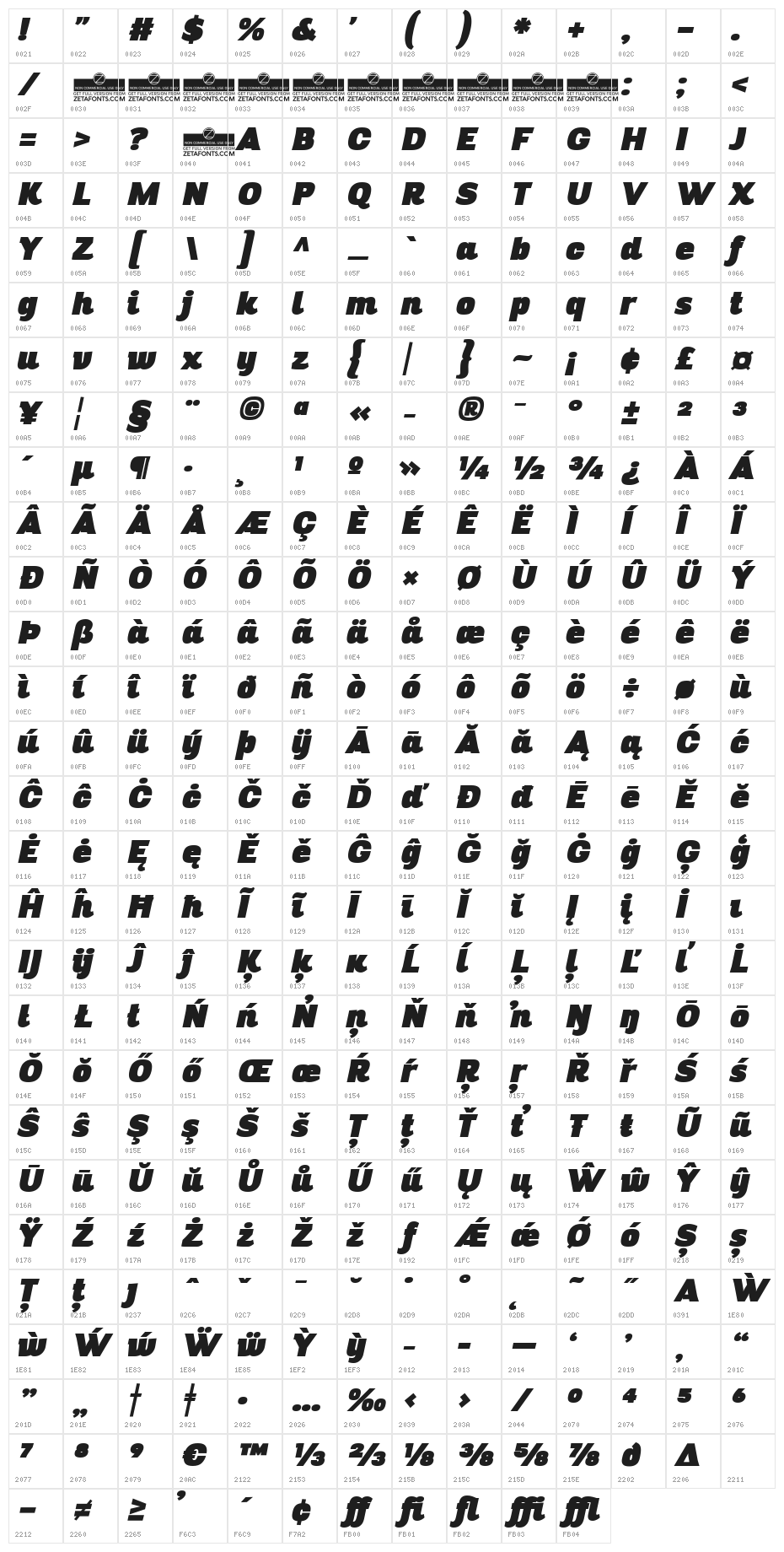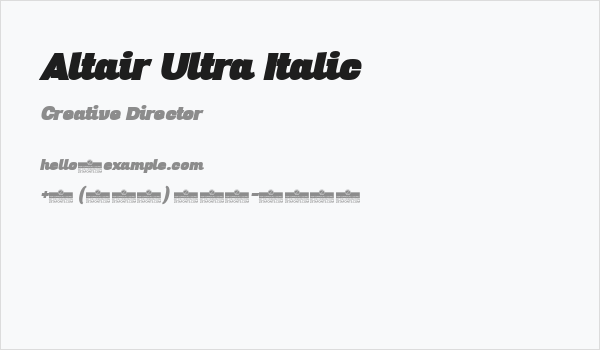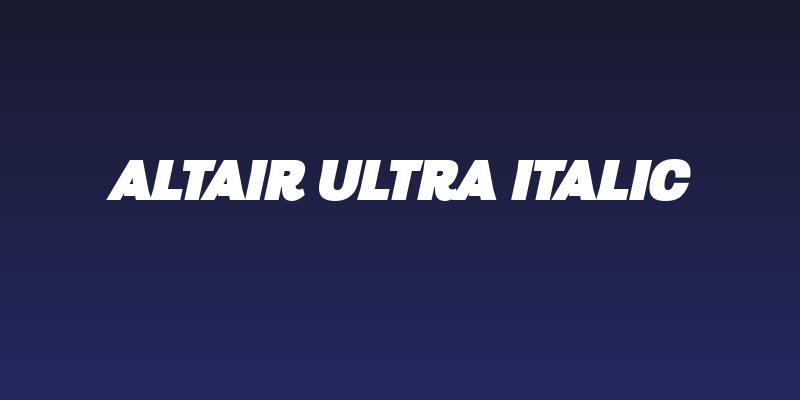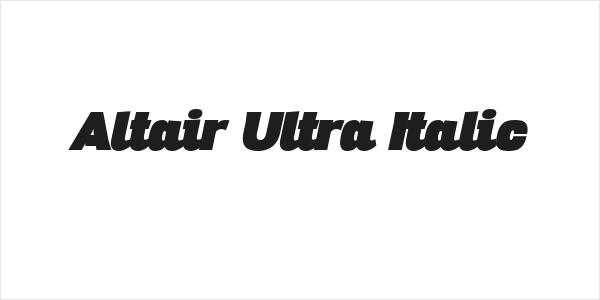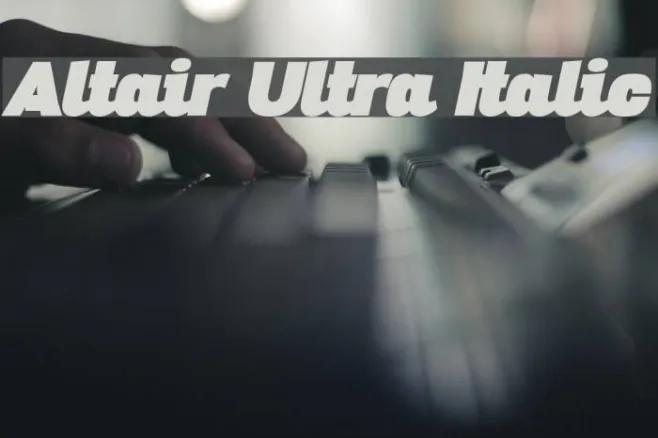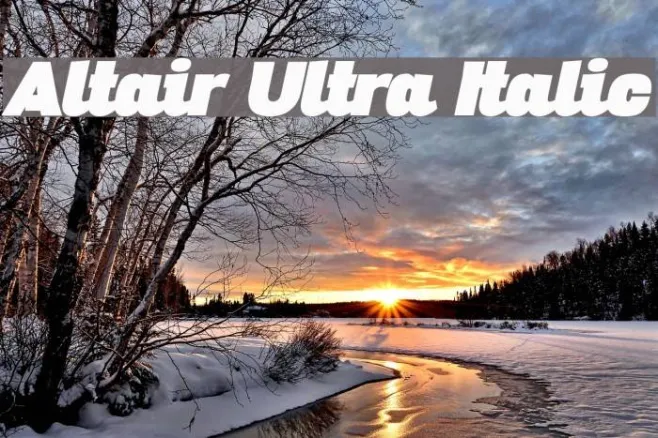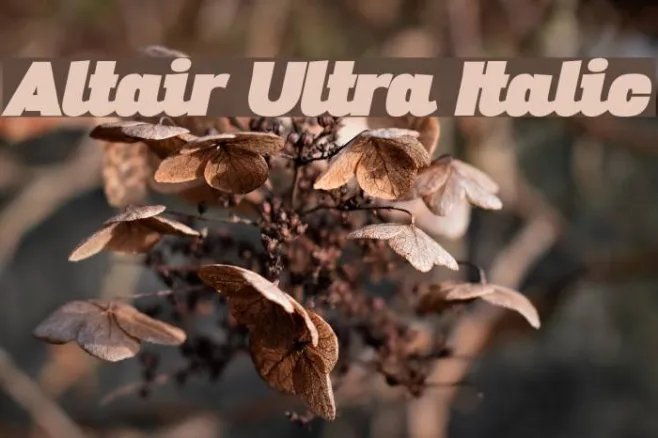
Altair Ultra Italic Font
Altair Ultra Italic Description
This font features a bold and dynamic style with a strong italic slant, creating a sense of movement and urgency. The characters are robust and thick, giving a powerful presence on the page. The uppercase and lowercase letters maintain a consistent weight, enhancing readability while still offering a unique flair. The numerals and special characters are equally bold, ensuring they stand out in any composition. This font's design is ideal for making a statement, with its wide strokes and confident angles.
| Proposed Projects | Ideal for sports branding, action-oriented posters, dynamic headlines, and impactful logos. |